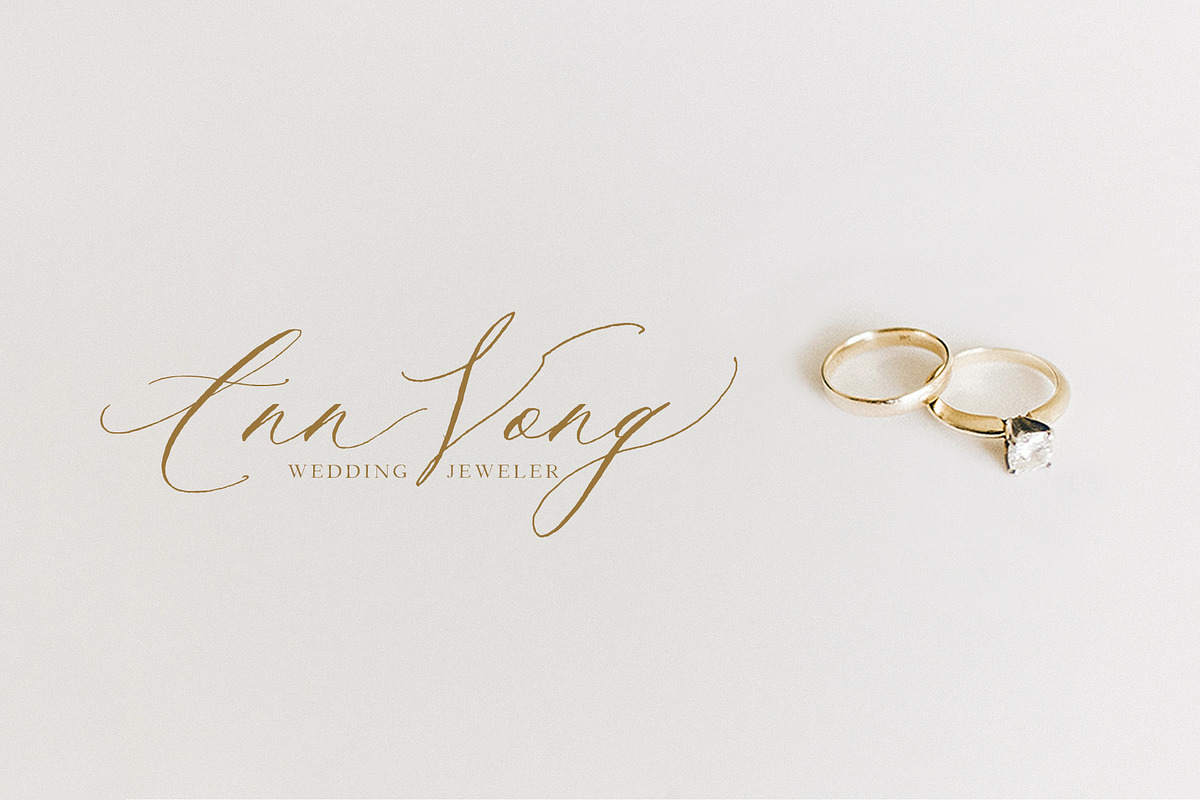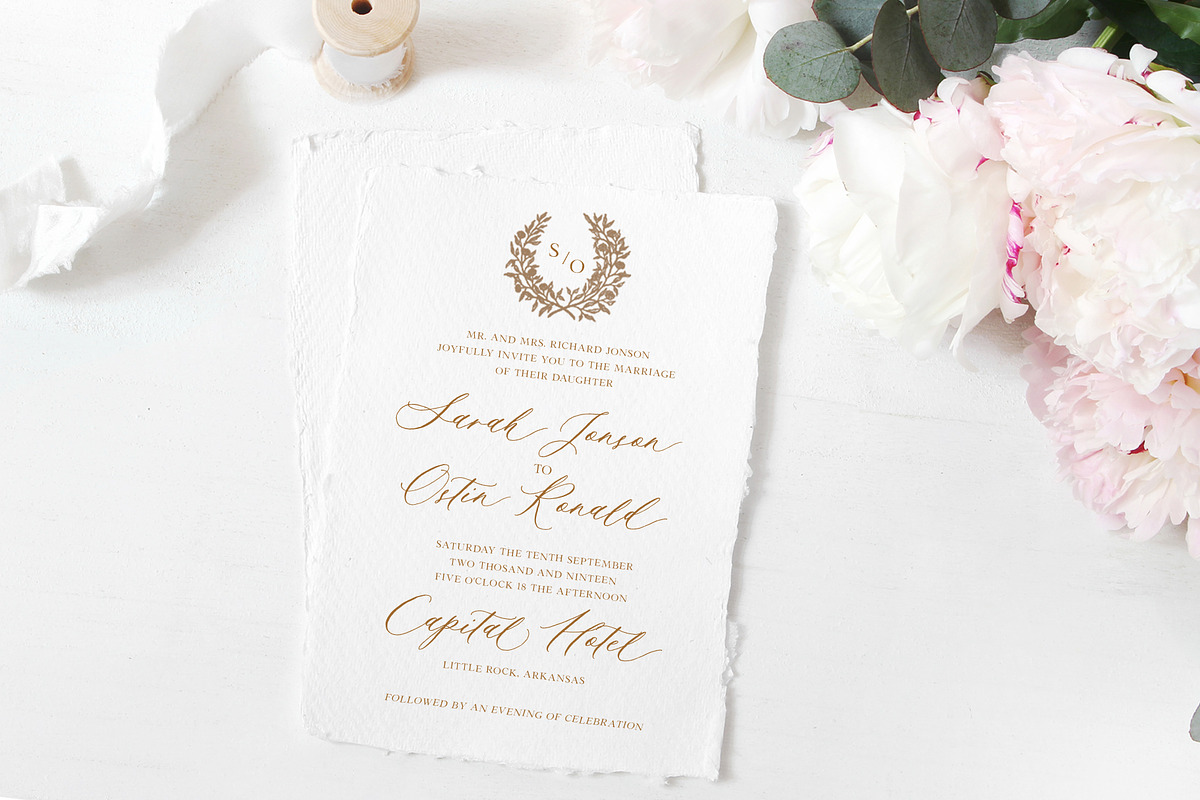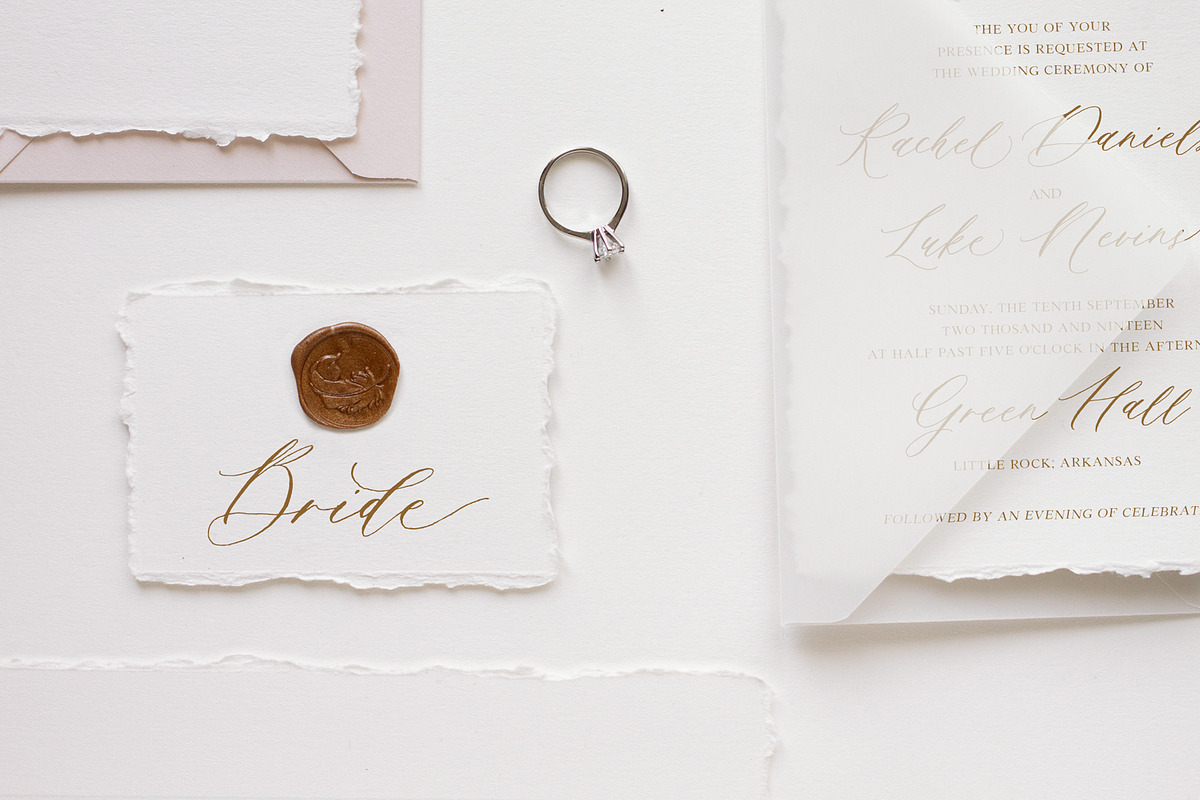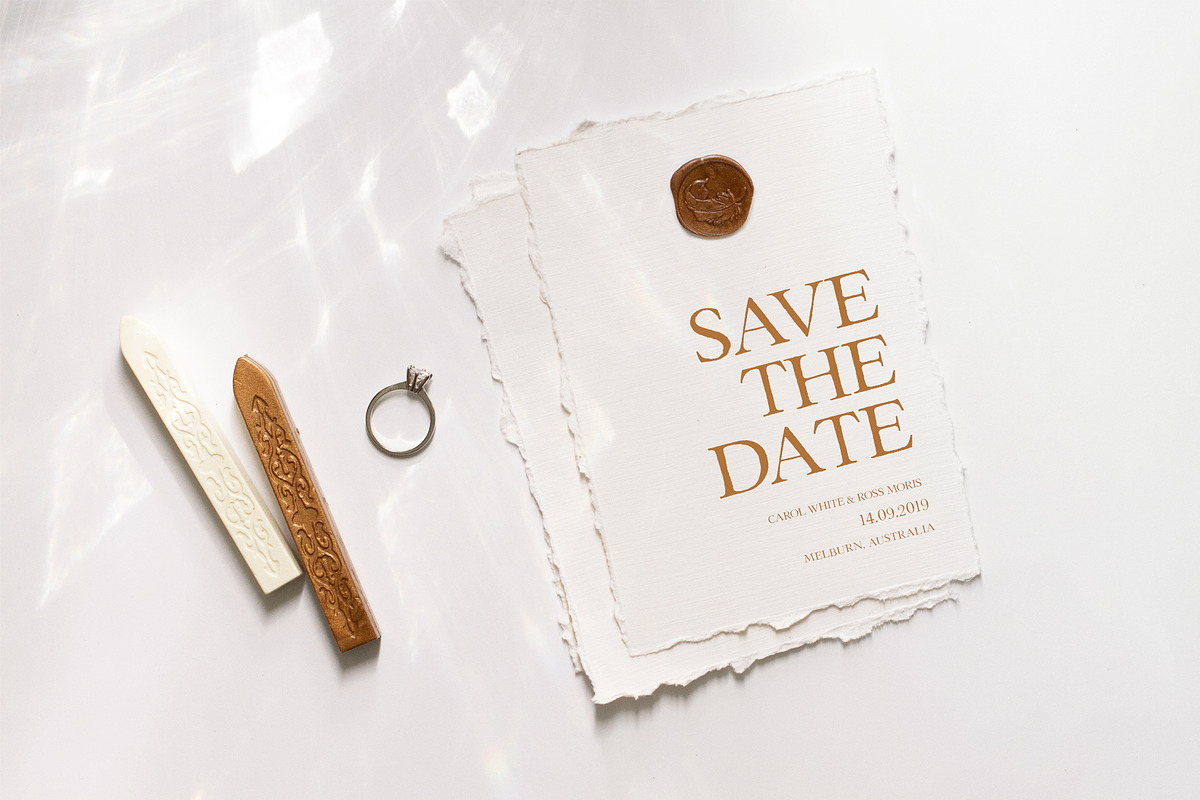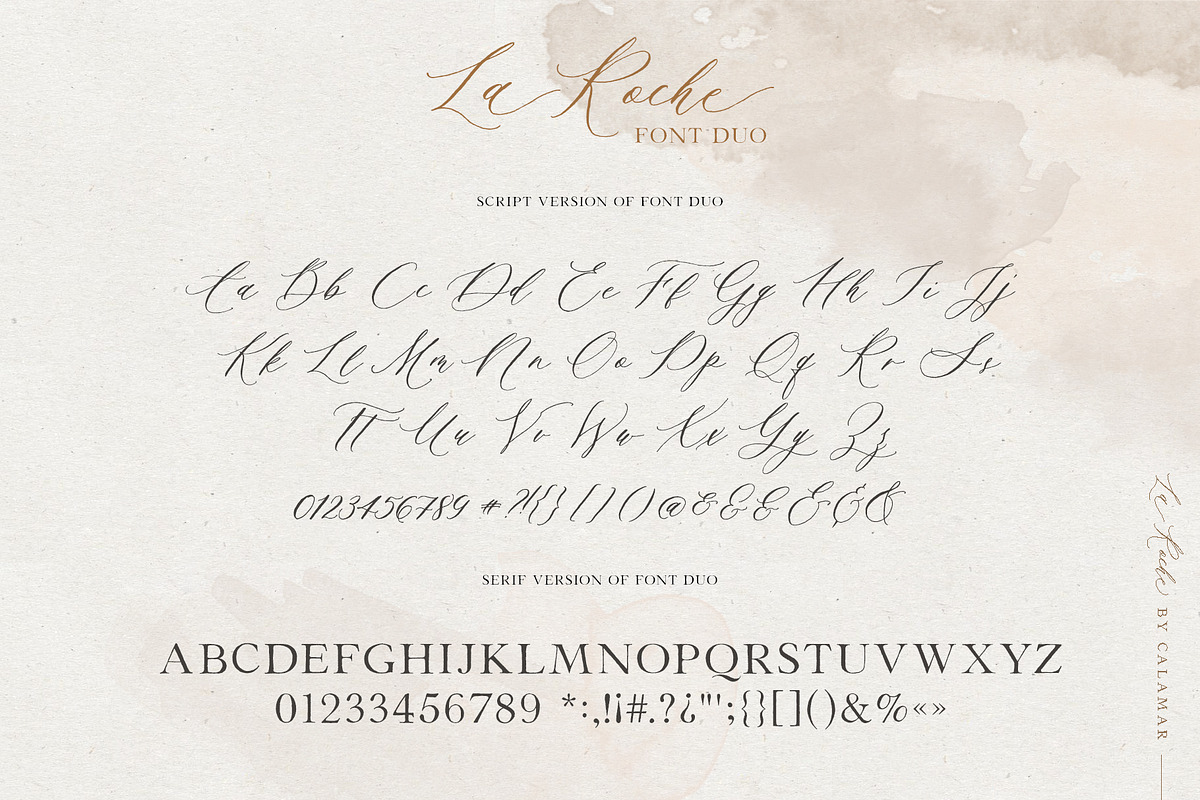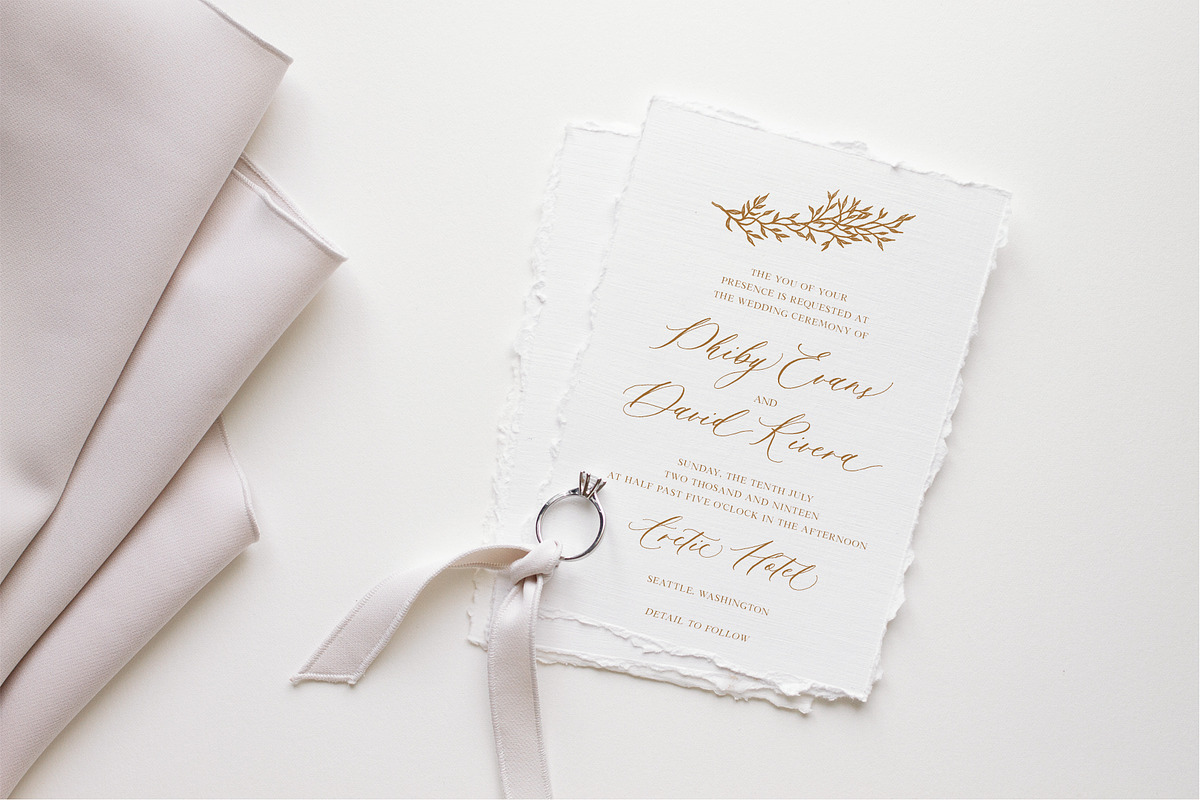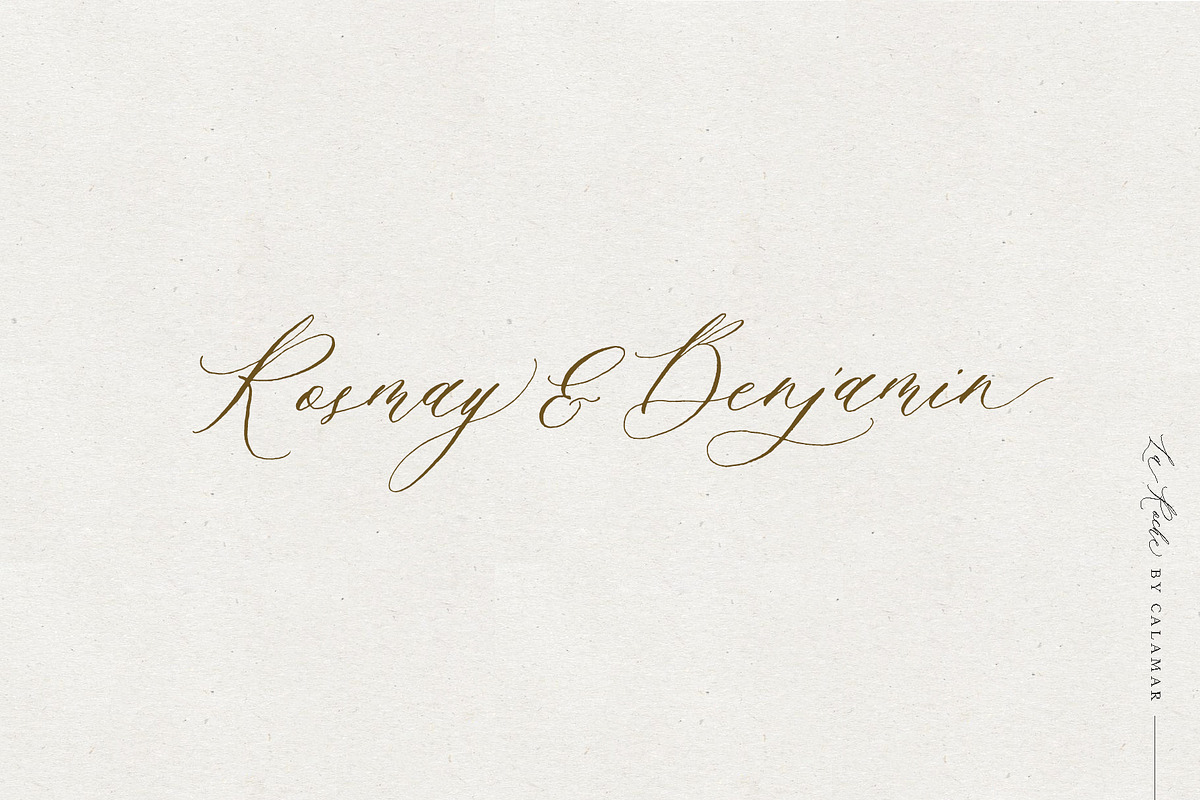
La Roche Font Duo
Meet the new contemporary calligraphy font duo that have handwritten and organic look - La Roche Font Duo. This beautiful font pair is for those who are needing of elegance and stylish for their designs and particularly well suited for wedding invitations, cards and feminine branding.
La Roche Font Duo includes two beautiful fonts - elegant Script and Serif font. It’s a beautiful font combo with rough edges to maintain the hand-written look.
La Roche Script includes full set of Uppercase and Lowercase Basic Characters, Numerals and Punctuation. Also it contains ligatures and a lot of stylistic alternates to perfectly re-create natural calligraphy.
- La Roche Serif is a classy high contrast font that contains only uppercase characters, numerals and punctuation.